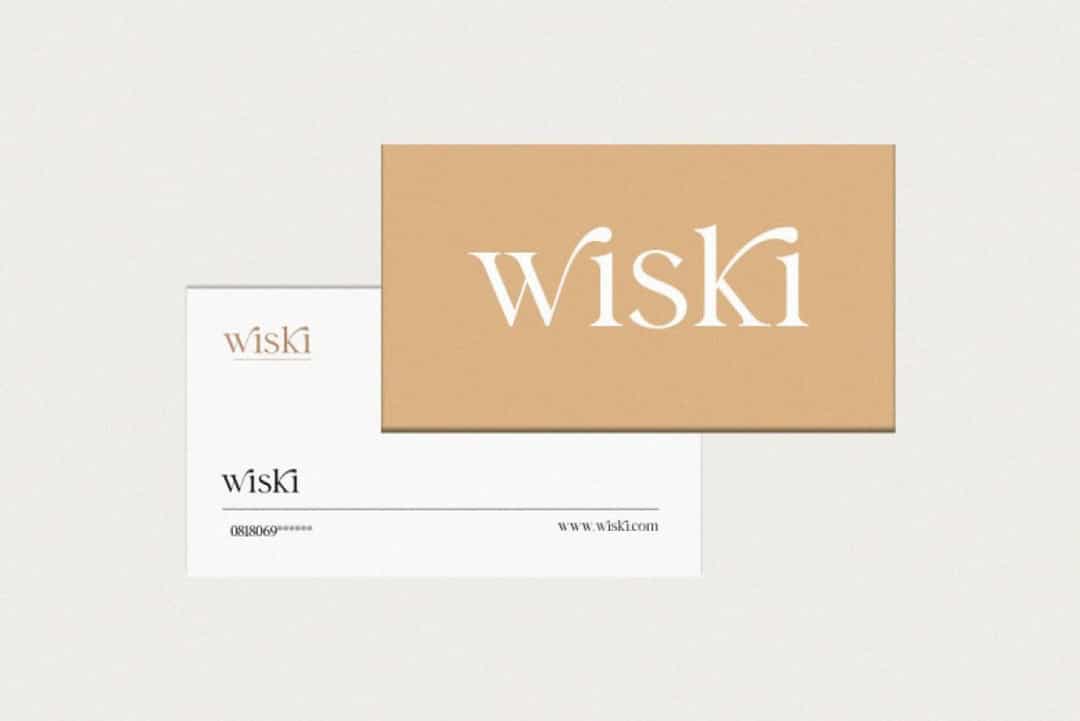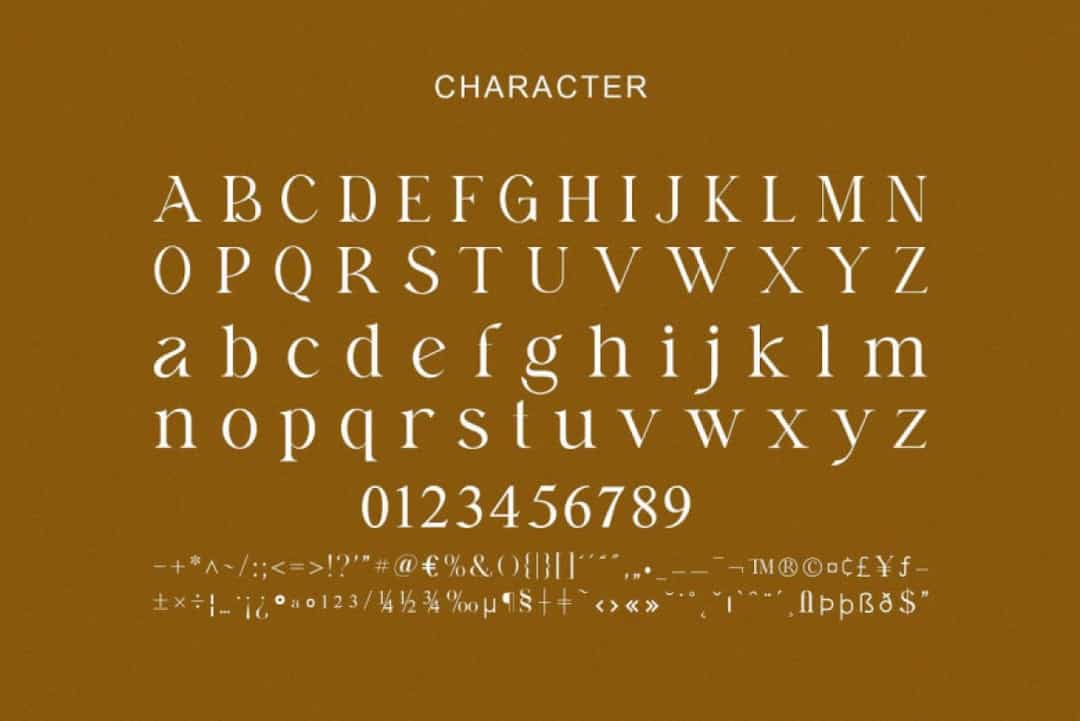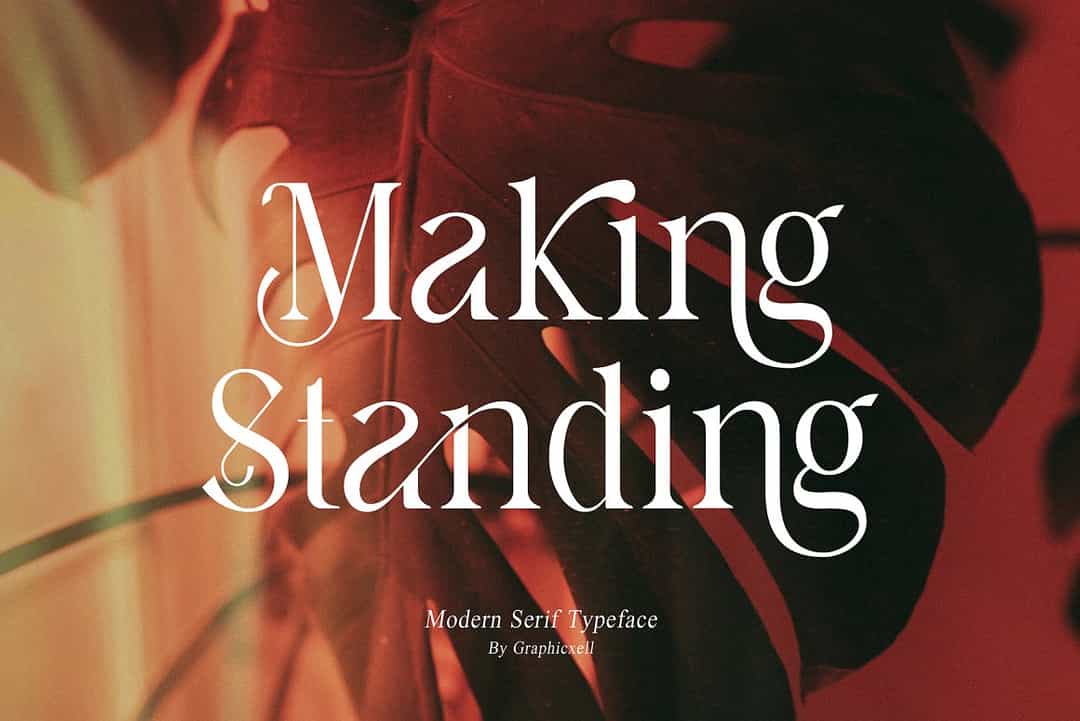
Making Standing Font
Making Standing is a serif font inspired by an iconic minimalist logo and perfect for designing templates brochures, videos, branding for advertising campaigns, logo invitations layout designs exquisite crafting stunning design projects as well as much more.